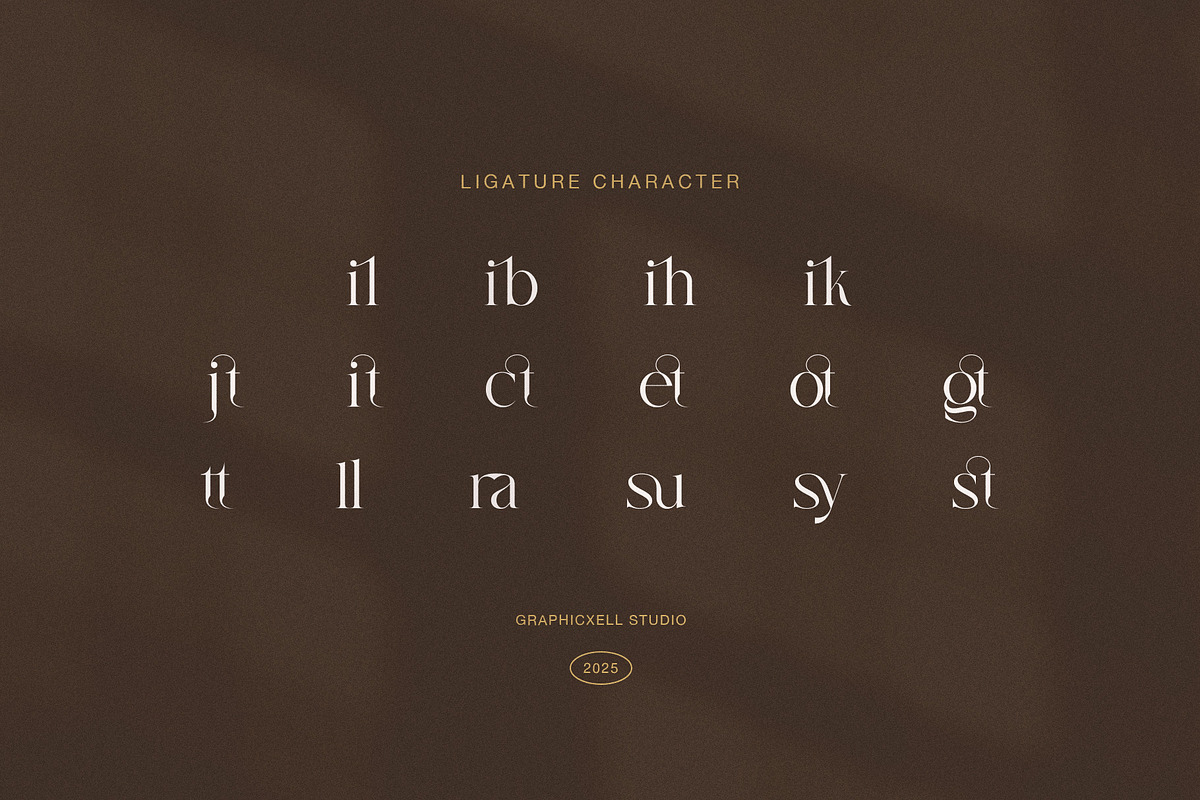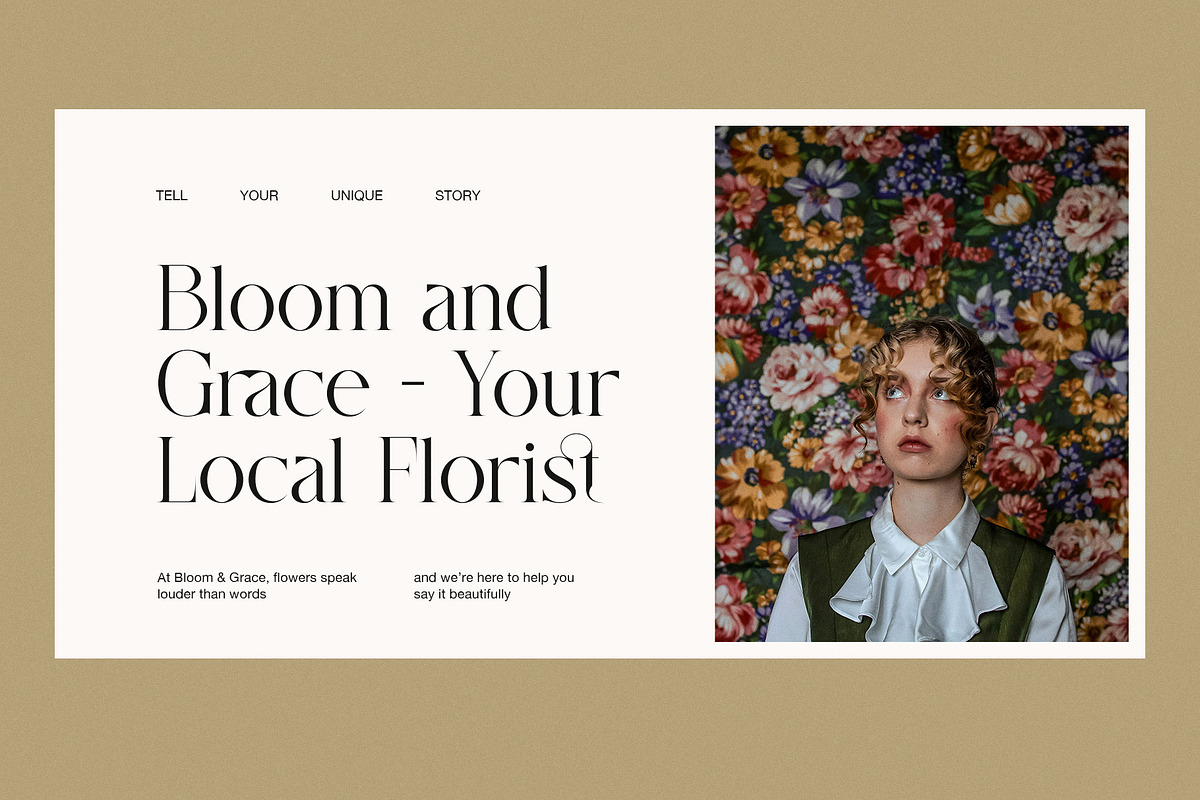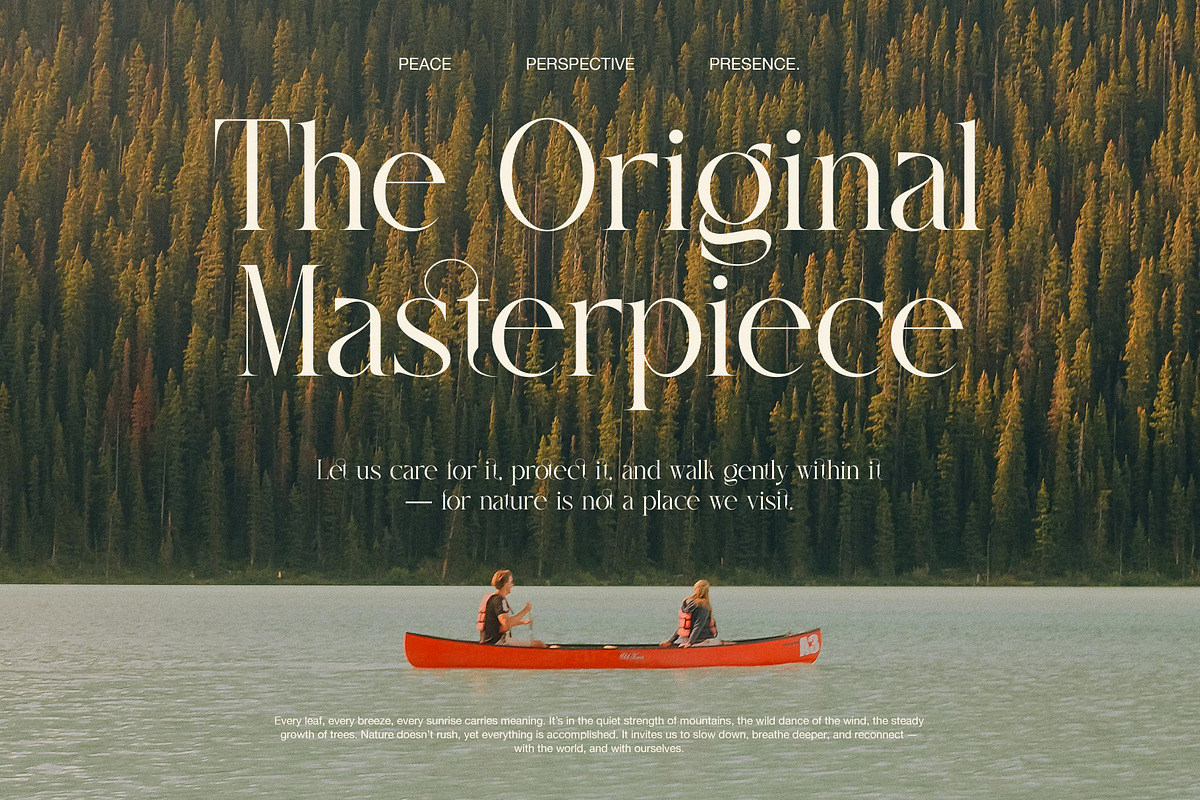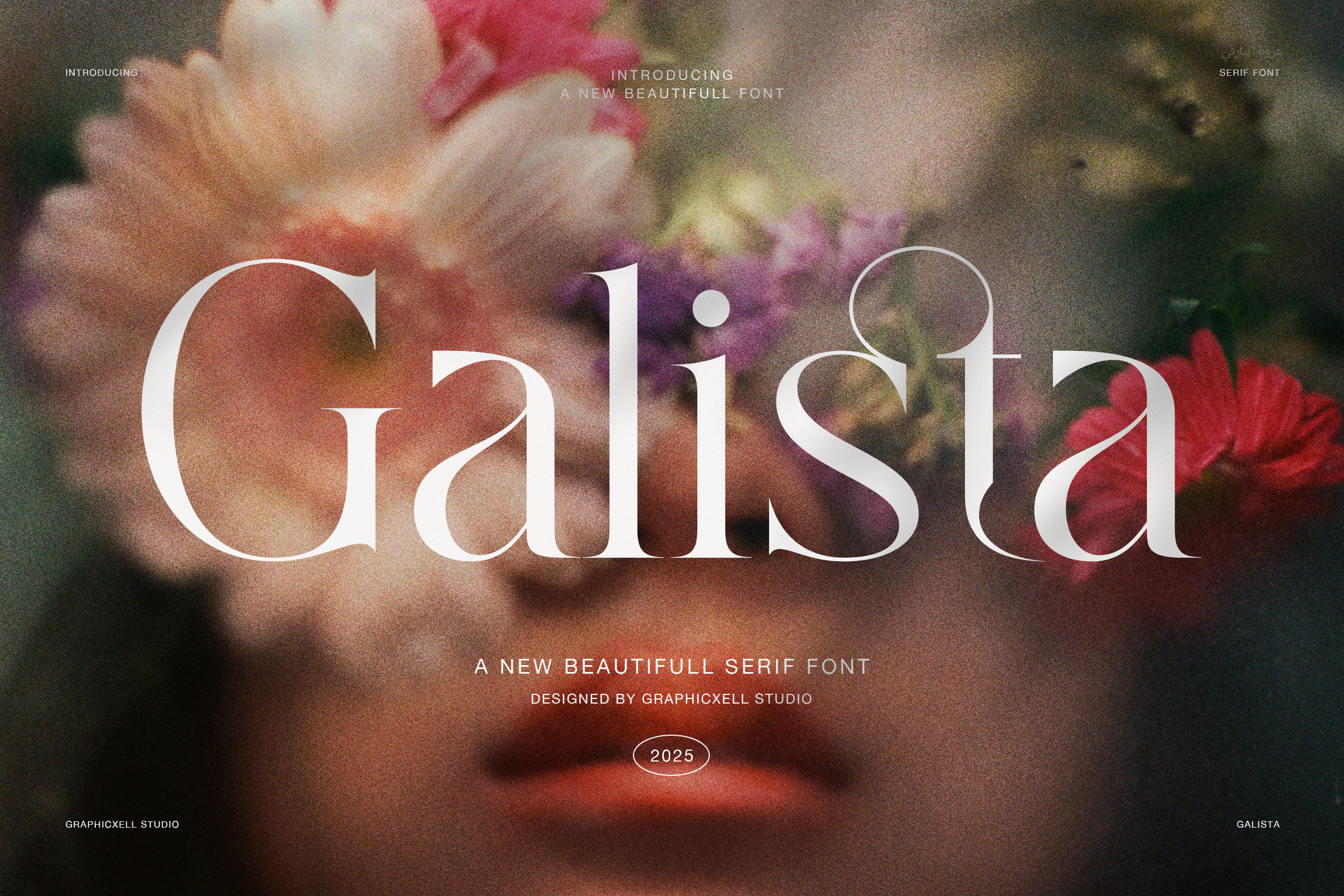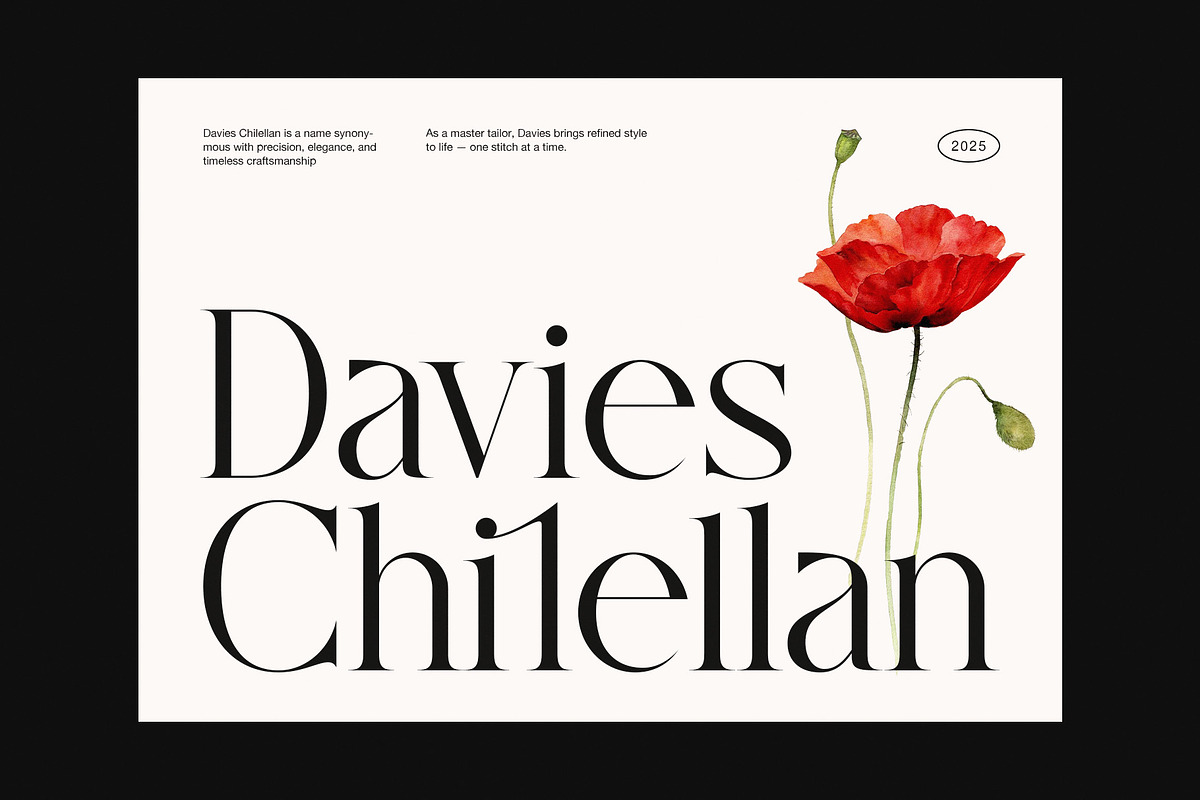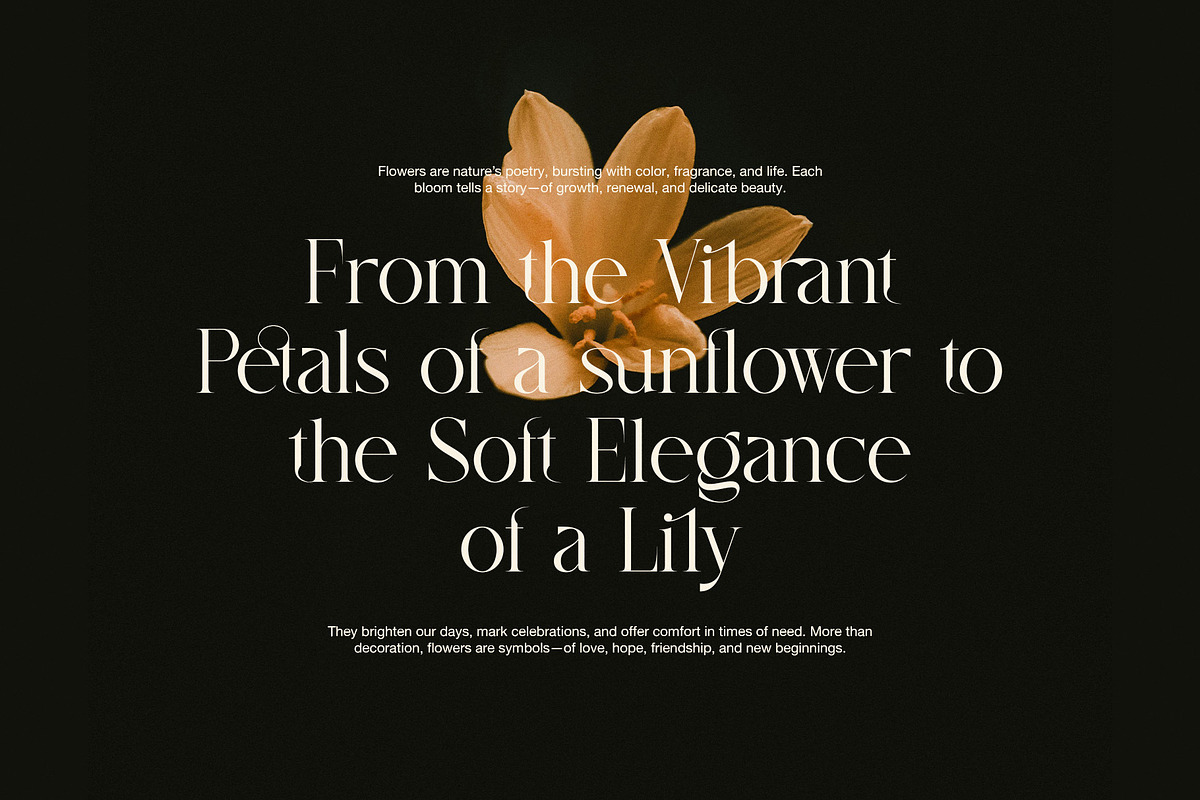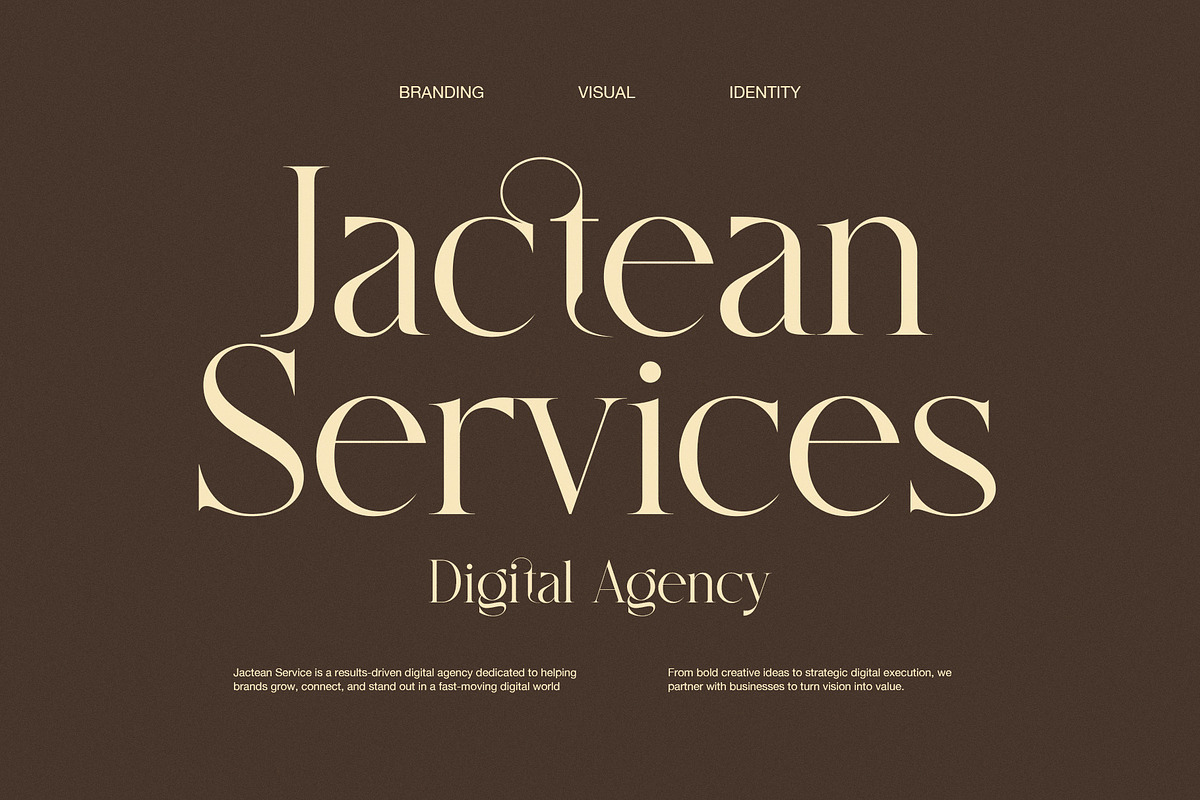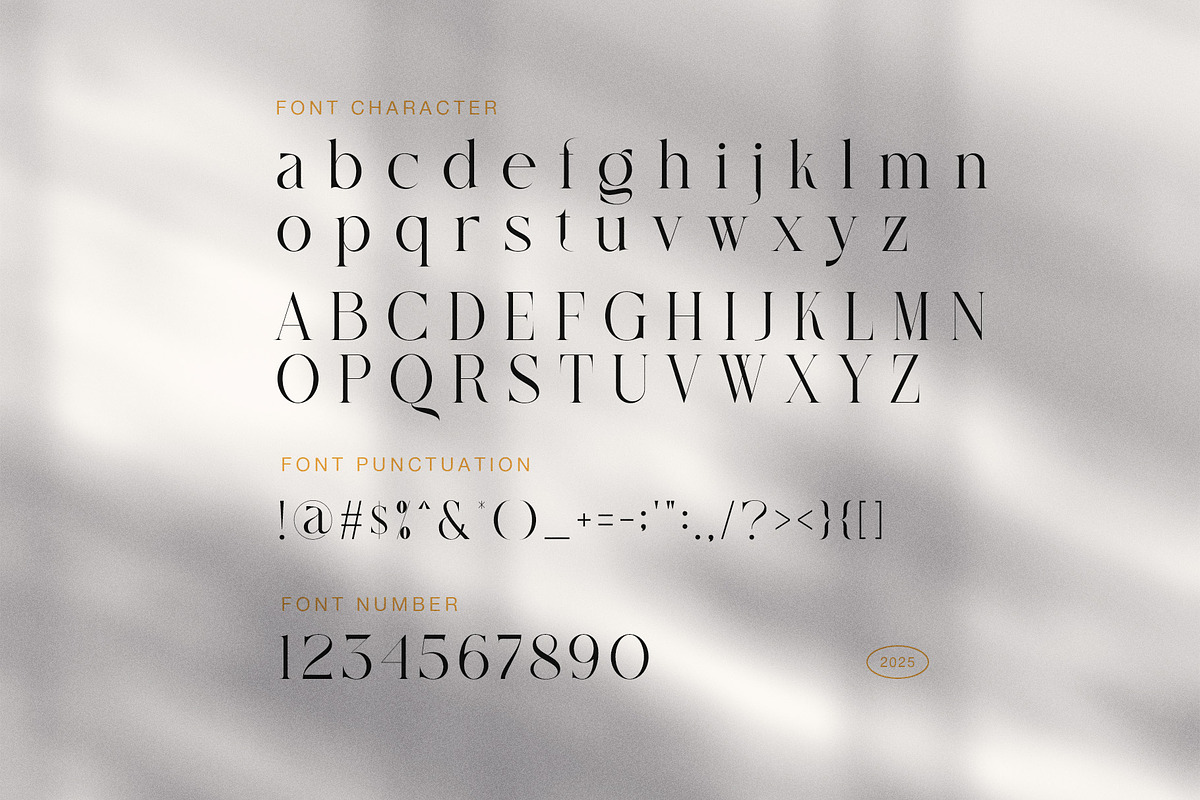
Galista Elegant Serif Font
Galista Elegant Serif Font brings timeless sophistication to modern design. Every curve and detail reflects balance, precision, and artistic care. Its smooth strokes and graceful contrast create a visual rhythm that feels elegant, expressive, and full of personality.
Designed for creatives who value refinement, Galista blends the beauty of classic serif shapes with a contemporary twist. Because of its clean form and luxurious tone, this font enhances projects that demand both clarity and style. It performs beautifully in fashion branding, editorial layouts, packaging, and wedding invitations.
Key Features of Galista Font:
Elegant serif design with stylish contrast
Unique ligatures and beautiful alternate characters
Perfect for fashion, branding, and editorial design
Great for packaging, logos, and invitations
Includes uppercase, lowercase, numbers, and punctuation
Moreover, Galista adapts gracefully to both print and digital media. It maintains readability while offering a refined visual experience. In addition, its balance between thick and thin strokes gives every project a luxurious presence. As a result, your design feels more confident and artistic.
While Galista looks stunning in large headlines, it also performs well in smaller text sizes. Therefore, you can use it flexibly across websites, magazines, posters, or branding materials. Furthermore, its ligatures and alternates allow for custom typography that feels personal and polished.
Choose Galista Elegant Serif Font to elevate your design with charm and confidence. It combines timeless style, perfect readability, and graceful motion. With Galista, your words don’t just appear—they make an impression.